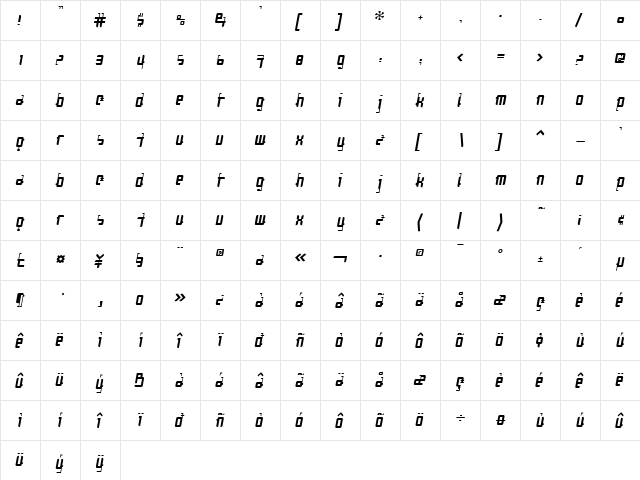
Cosmonaut Oblique
Design Context for Cosmonaut Typeface
Cosmonaut is a composed and adaptable typeface that performs quietly and consistently across a wide range of design contexts. The slanted form adds forward momentum and visual energy.